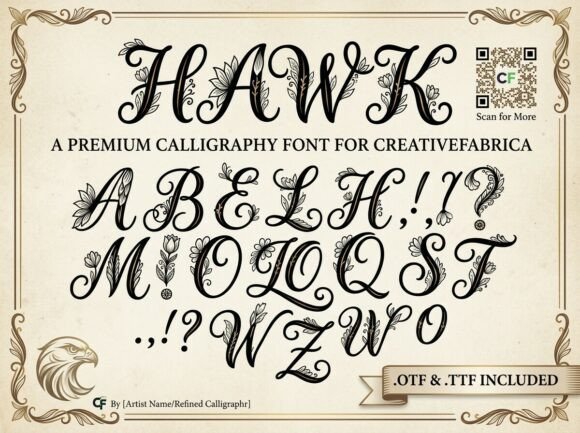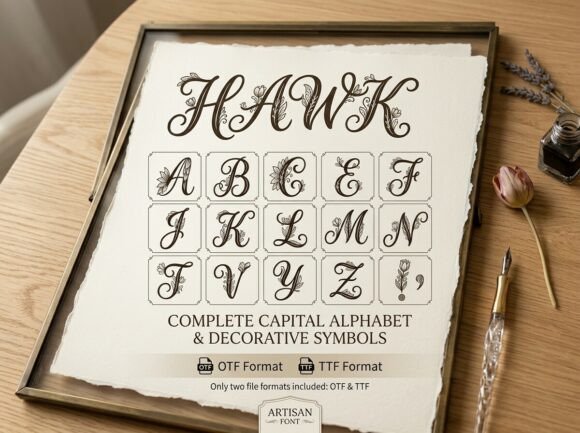
Introducing Hawk Font: The Ultimate Decorative Display Font for Creative Projects
Are you tired of using the same old fonts for your designs? Look no further than Hawk Font, a stunning decorative display font that’s sure to turn heads. With its unique artistic elements and strong visual personality, this font is perfect for creators who want to break away from the ordinary and make a statement.
Hawk Font is designed to be the center of attention, featuring intricate details and creative letterforms that are sure to add an instant “wow” factor to any project. Whether you’re designing a modern poster, a unique brand identity, or eye-catching social media content, this font is the perfect choice. Its bold and eye-catching design makes it ideal for high-impact designs where the typography needs to do the talking.
One of the best things about Hawk Font is its versatility. This font is perfect for a wide range of design projects, including:
- Poster Design: Create headlines that people can’t look away from with Hawk Font’s bold and eye-catching design.
- Branding & Logos: Build a unique identity for creative businesses with a font that’s both professional and polished.
- Apparel & Merch: Perfect for T-shirts, hoodies, and tote bag designs that need a bold and eye-catching font.
- Social Media Content: Stand out from the crowd with Hawk Font’s unique and creative design.
Why Choose Hawk Font?
So why choose Hawk Font over other decorative display fonts? Here are just a few reasons:
- Unique Design: Hawk Font features a unique and creative design that’s sure to turn heads.
- High-Impact Typography: This font is perfect for high-impact designs where the typography needs to do the talking.
- Professional and Polished: Despite its bold and eye-catching design, Hawk Font maintains a professional and polished finish.
- Instant “Wow” Factor: Add an instant “wow” factor to any project with Hawk Font’s bold and eye-catching design.
How to Use Hawk Font
- Use it for Headlines: Hawk Font is perfect for headlines and titles, so use it to add a bold and eye-catching touch to your designs.
- Experiment with Colors: Don’t be afraid to experiment with different colors and textures to really make your designs pop.
- Pair it with Other Fonts: Hawk Font pairs well with a wide range of other fonts, so don’t be afraid to get creative and try out different combinations.
If you’re looking for a decorative display font that’s sure to turn heads, look no further than Hawk Font. With its unique artistic elements and strong visual personality, this font is perfect for creators who want to break away from the ordinary and make a statement. Whether you’re designing a modern poster, a unique brand identity, or eye-catching social media content, Hawk Font is the perfect choice. So why wait? Download Hawk Font today and start creating stunning designs that demand attention.